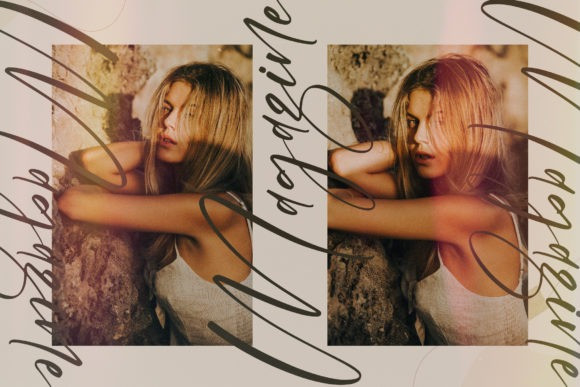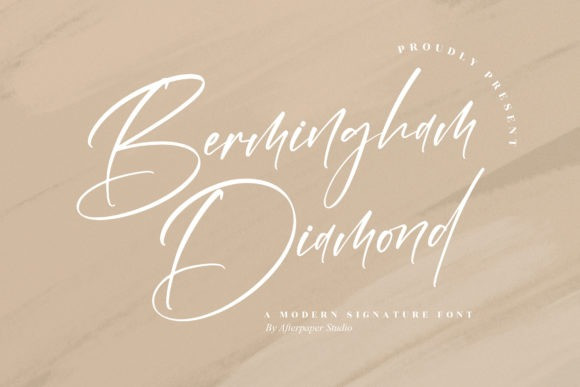
Bermingham Diamond Font
Bermingham Diamond Font, is a lovely and timeless handwritten font. It is the best choice for creating eye catching logos, branding and quotes. This font is PUA encoded which means you can access all of the glyphs and swashes with ease!